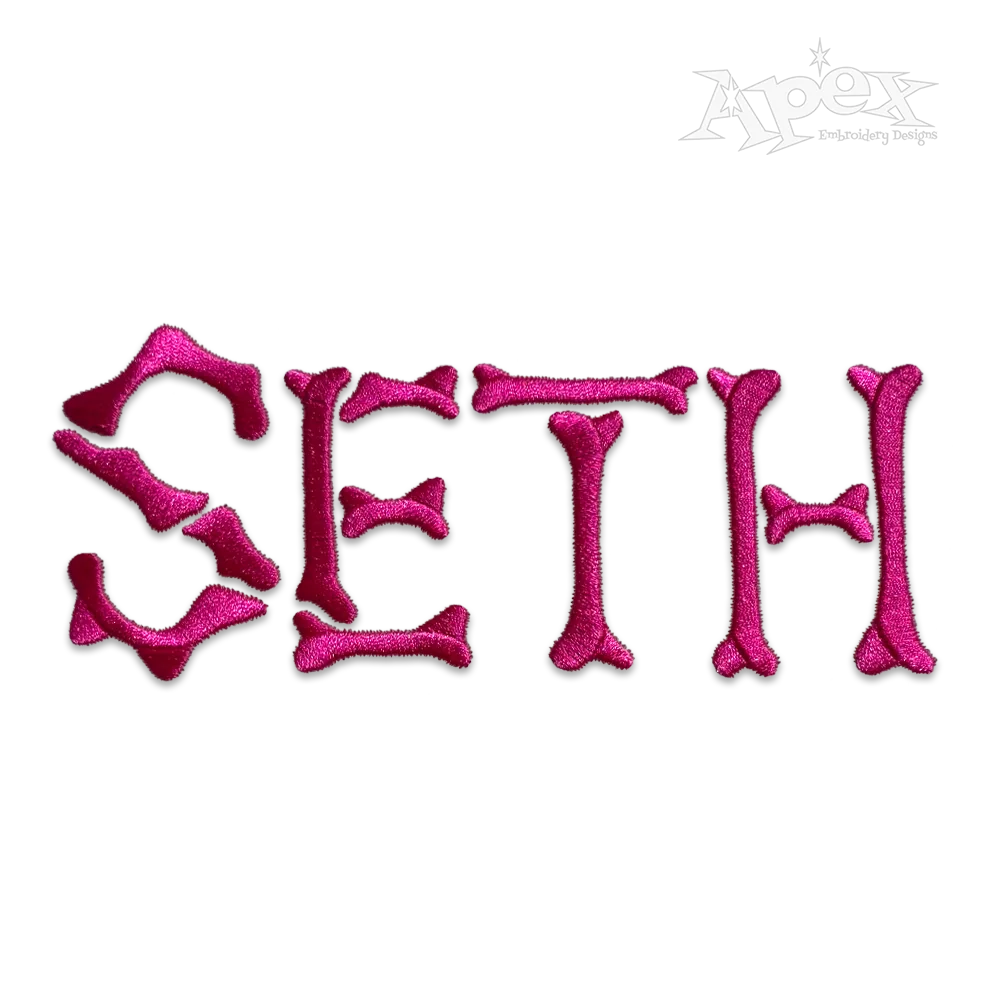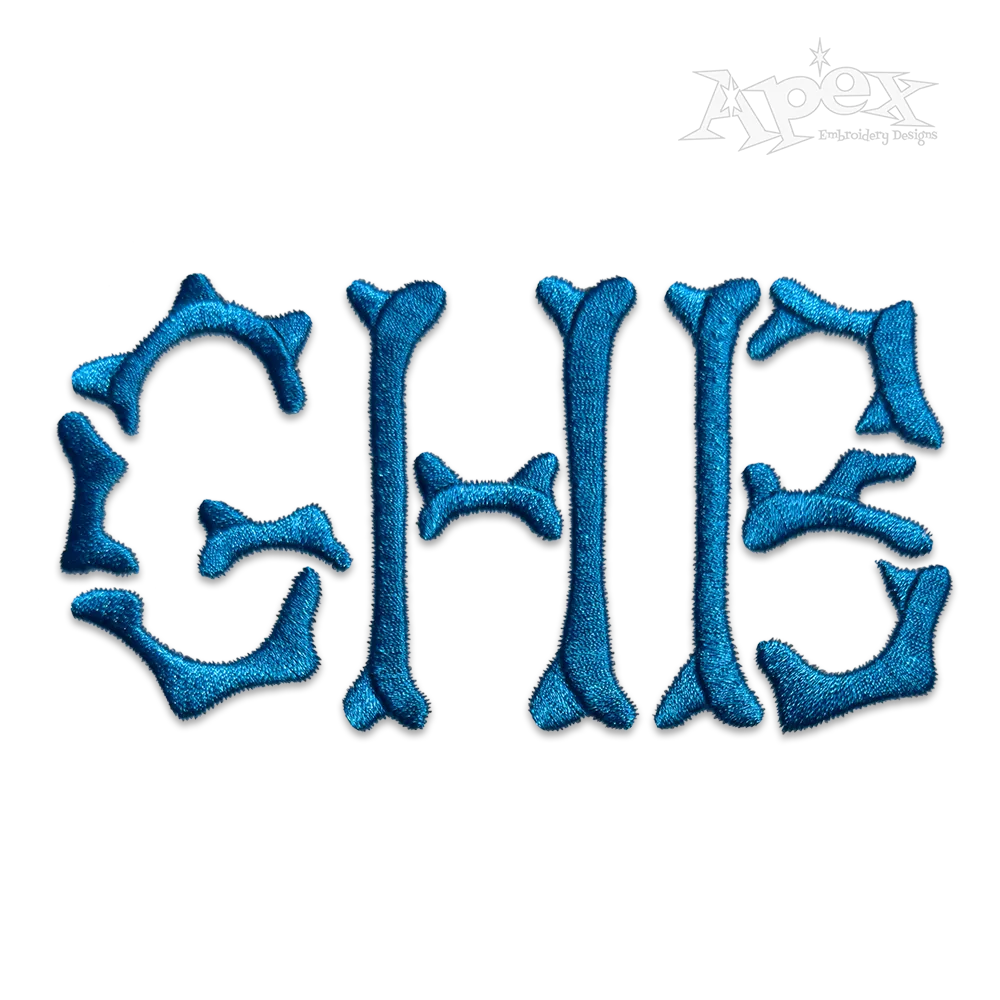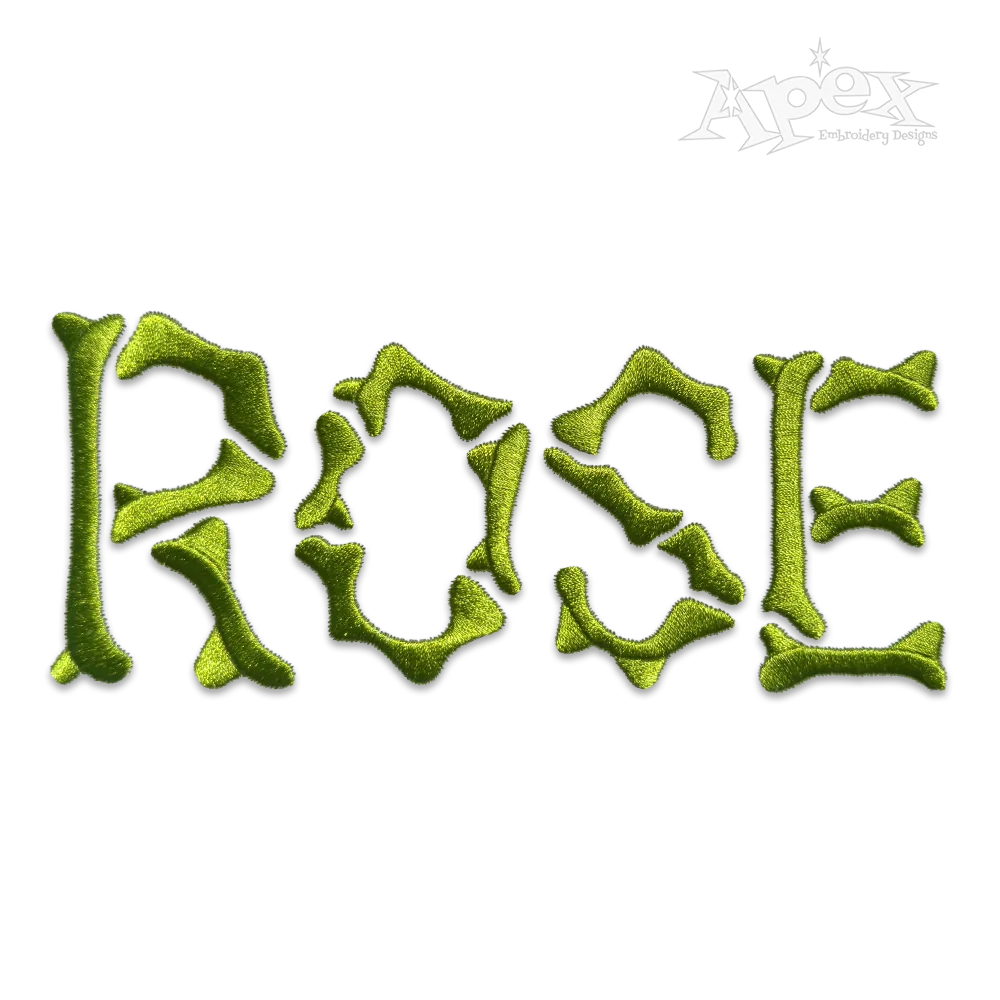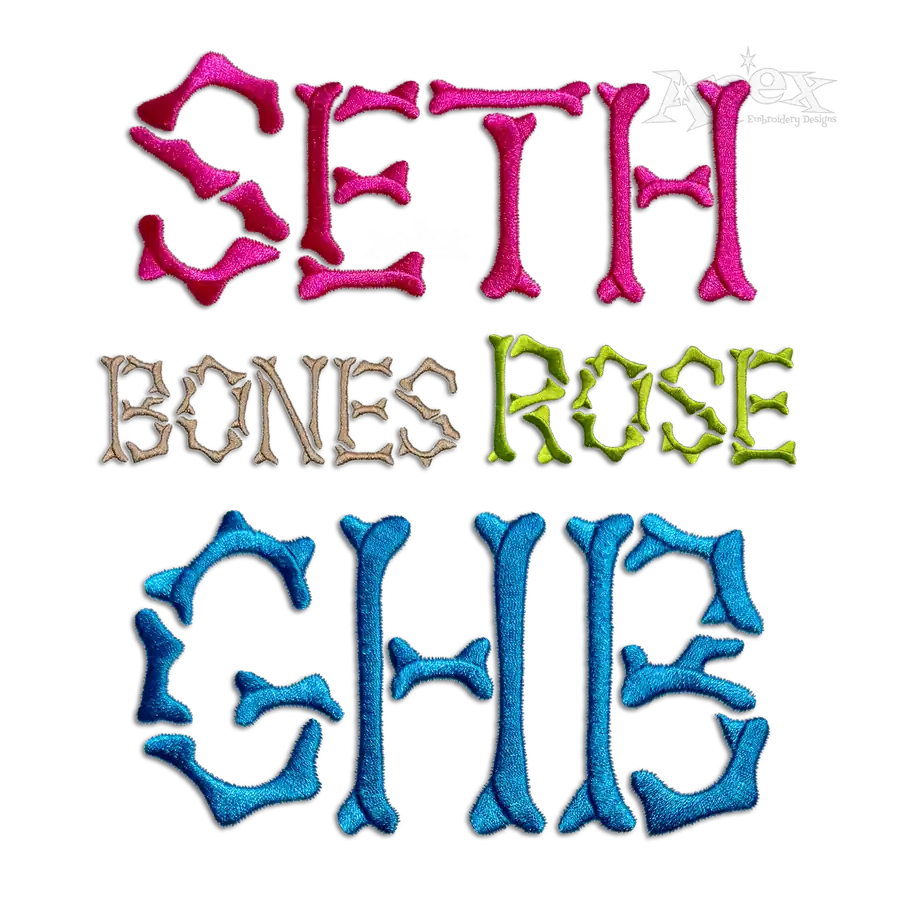
Bones Embroidery Font
Conceived under the spell of autumn twilight and midnight folklore, the Bones Embroidery Font transforms skeletal anatomy into an enchanting dance of playful typography. Far from grim, each letterform mimics the spirited silhouette of rattling bones, sculpted with jaunty bends, articulated joints, and distinct character. Whether composing spirited monograms or festive Halloween slogans, this whimsical satin stitch alphabet infuses your machine embroidery with tactile depth, vintage gothic allure, and spirited, mischievous energy.
Digitized with meticulous push-and-pull compensation across three dedicated scale profiles, this versatile collection stitches cleanly on garments, accessories, and home accents:
- 1.0 inch – Perfectly calibrated for subtle cuff accents, children's pocket monograms, and delicate tabletop motifs.
- 1.5 inch – An all-around favorite for trick-or-treat totes, tea towels, and seasonal chest monograms.
- 2.5 inch – A commanding statement scale featuring rich, sculpted density for sweatshirt fronts, wall decor, and festive trick-or-treat sacks.
Project Ideas for Bones Embroidery Font
This charismatic alphabet breathes spooky celebration into an array of curated projects and personalized gifting:
- Canvas Trick-or-Treat Totes: Personalize sturdy canvas sacks with custom spooky names that stand up to active neighborhood adventures.
- Linen Cocktail Napkins: Stitch single initial monograms in stark black or antique ivory for elevated Halloween dinner parties.
- Cozy Autumn Loungewear: Embroider playful names or seasonal phrases across fleece hoodies, waffle-knit pullovers, and slumber-party pajamas.
- Bespoke Table Runners & Pillows: Accent rich velvet or natural burlap with dance-like skeletal typography for haunting autumn living spaces.
- Personalized Treat Buckets & Pet Bandanas: Stitch durable seasonal accents on heavy cotton canvas for every trick-or-treater in the family.
Because the organic silhouettes of bones naturally balance negative space, careful placement enhances their expressive movement:
- Pocket Tops & Cuffs: Use the 1.0-inch size just above chest patch pockets or along jacket cuffs for a cheeky, understated peek-a-boo effect.
- Center Chest: The 2.5-inch letters command attention positioned 3 to 4 inches below the neckline on crewnecks, cardigans, and youth tees.
- Diagonal Napkin Corners: Angle a single skeletal monogram 1.5 to 2 inches from the bottom-right corner of table linens for crisp, modern entertaining.
- Centered on Bag Flaps & Panels: Center names horizontally across tote fronts, ensuring generous margins to let the whimsical bone contours breathe.
Bones Embroidery Font Craft & Letterform Details
Digitizing bone structures requires an artistic hand and an intuitive approach to stitch mechanics. Rather than relying on simple stick figures, each stroke is individually drafted with organic swellings, rounded knuckle ends, and narrow joints that echo real skeletal anatomy. We calibrated the satin column angles to curve gracefully around every bend, maintaining a soft, lustrous sheen that catches ambient light across the thread surface.
Specialized underlay networks anchor the satin stitches securely without creating stiff or unyielding spots, ensuring that even on lightweight knits and heirloom linens, each dancing bone maintains crisp edge definition, flawless alignment, and supple drape. The result is a spirited, theatrical font that stitches with whisper-smooth fluidity from start to finish.